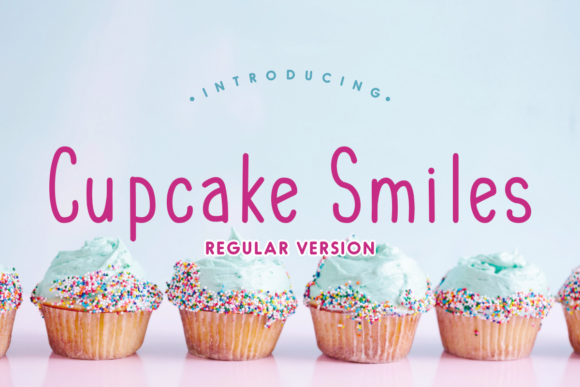
Designing Smiles with the Cupcake Smiles Family Font
Who hasn’t been inspired by a sweet treat or a joyful moment? Perhaps it was a childhood birthday party, a wedding cake, or a simple cupcake that sparked a creative idea. For designers, those moments often translate into beautiful and meaningful designs that bring happiness to others. The Cupcake Smiles Family Font is one such creation that can add a touch of whimsy and warmth to your projects.
This delightful font is a part of the Cupcake Smiles Family Font, designed to evoke feelings of happiness and togetherness. With five weights to choose from, you can experiment with various styles and create unique designs that cater to your artistic vision. The Cupcake Smiles Family Font is a valuable addition to any designer’s toolkit, offering endless possibilities for creative expression.
Cupcake Smiles Family Font Key Features
- Character Count: This font family includes over 1,000 characters, including uppercase and lowercase letters, numbers, punctuation marks, and special characters.
- Unique Characteristics: The Cupcake Smiles Family Font features a playful, hand-drawn design with a mix of bold and delicate lines, creating a whimsical and eye-catching effect.
Cupcake Smiles Family Font Review
I recently had the chance to work with the Cupcake Smiles Family Font, and I have mixed feelings about it. Here’s what I think works well:
- ✨ The font has a playful, whimsical feel that’s perfect for kid-focused brands or desserts-themed designs.
- ✨ The font is highly customizable, with a wide range of styles and sizes to choose from.
- ✨ The font is well-suited for digital use, with crisp and clear lines that look great on screens.
However, I do have some concerns:
- ⚠️ The font can feel a bit over-the-top or cheesy, especially when used for more serious or professional designs.
- ⚠️ The font’s playfulness can also make it difficult to read in certain contexts, such as in long blocks of text.
- ⚠️ The font’s customization options can be overwhelming, making it difficult to know where to start.
Overall, I think the Cupcake Smiles Family Font is a fun and playful choice for the right projects. However, it may not be the best fit for more serious or professional designs.
The Cupcake Smiles Family Font is perfect for creating whimsical and playful designs, such as:
– Children’s party invitations and decorations
– Food and dessert branding
– Social media graphics and ads
For the best results, use the Cupcake Smiles Family Font in combination with bright and bold colors and playful graphics.